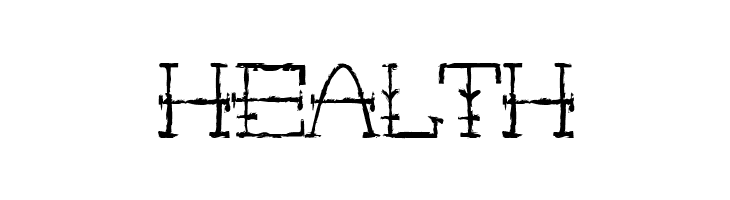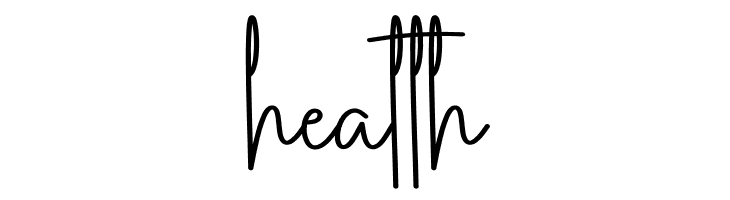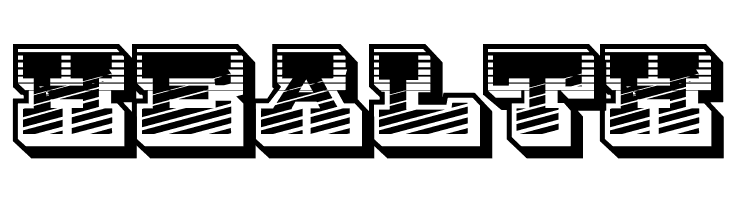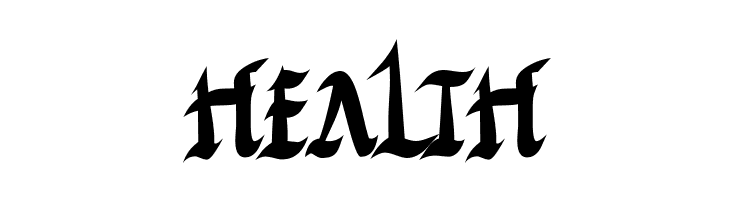
Balbeer Rustic Font
gameboth studio - Bhahtiar Nugroho Adiputro
A bold, rustic font with a textured, vintage appearance.
Briasco Rustic Font
Font by
juanignaciobriasco
A rustic, hand-drawn font with uneven strokes and an organic feel.
Rustic Font
A bold, distressed font with a rustic, handcrafted appearance.
JGJ Roman Rustic Font
A calligraphic font with sharp, angular strokes inspired by Roman inscriptions.
RusticBlackShadow Font
A bold, decorative font with a rustic, shadowed style and intricate detailing.
Dry Goods Rustic JL Font
A bold, decorative font with a rustic, textured design and striped pattern.
Rustico Font
John Gauthier - John Gauthier
A bold, angular font with a dynamic and modern style.
JGJ Roman Rustic Bold Font
A bold, rustic font with Roman influences and sharp, angular strokes.
RusticusStd Font
A rustic, handcrafted font with a vintage flair.
Rustic Capitals Font
Mouser Fonts - www.mouserfonts.com/
A bold, angular font with a historical Roman inscription style.
Kid Knowledge 2 Rustic Font
Font by 38.lineart
A rustic, textured font with a hand-drawn, organic feel.
Rustick_Capitals Font
Font by Paul Lloyd
A bold, decorative blackletter font with intricate details and a medieval flair.
The Rustic - Demo Font
Pinisiart
A bold, decorative font with a rustic, textured appearance and unique, handcrafted details.
Rustic Santa Font
Font by Scratchones
Playful handwritten script with rustic charm.
RustiCalligraphia Font
A whimsical, hand-drawn font with playful and irregular strokes.
Rustic Barn Font
Font by Nirmala Creative
A charming, rustic handwritten font with a casual yet elegant script style.
Muttung - Rustic Font
Haksen Letters - Sarwo Edhi Prayitno
A rustic, hand-drawn font with a textured, brush-like appearance.
Typewriter Rustic RNH Regular Font
A rustic, vintage typewriter-style font with a distressed, hand-crafted appearance.
Rustic Revolution Font